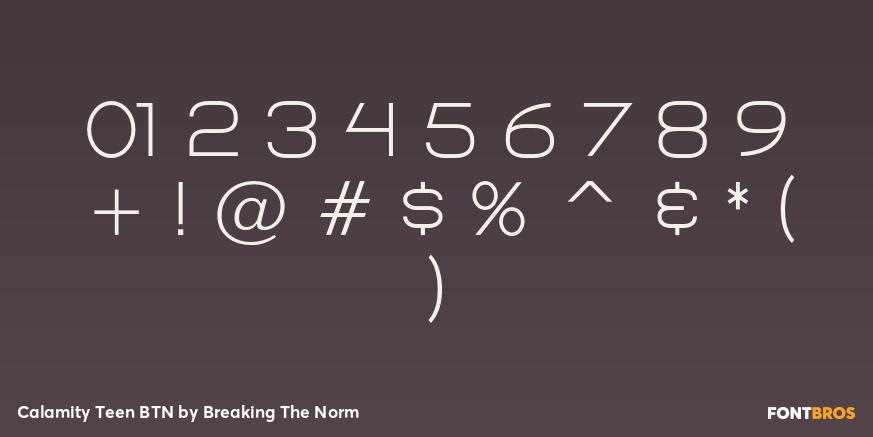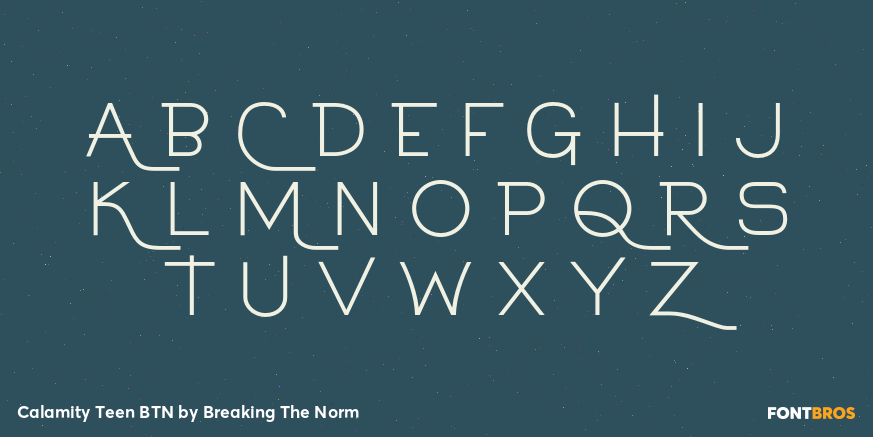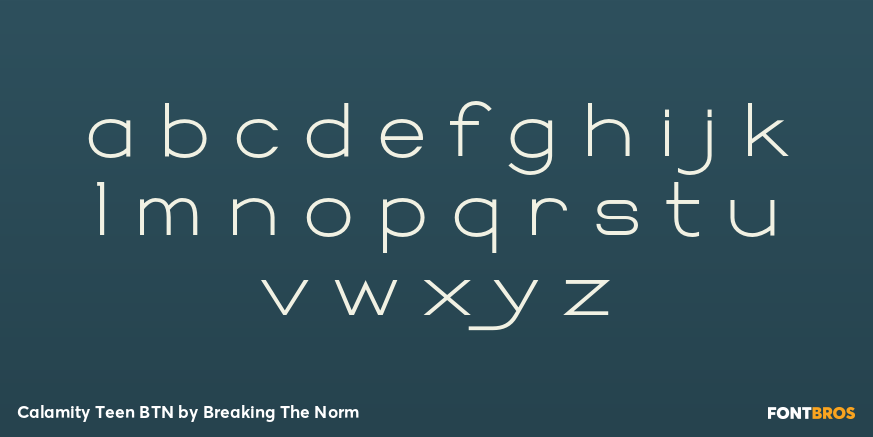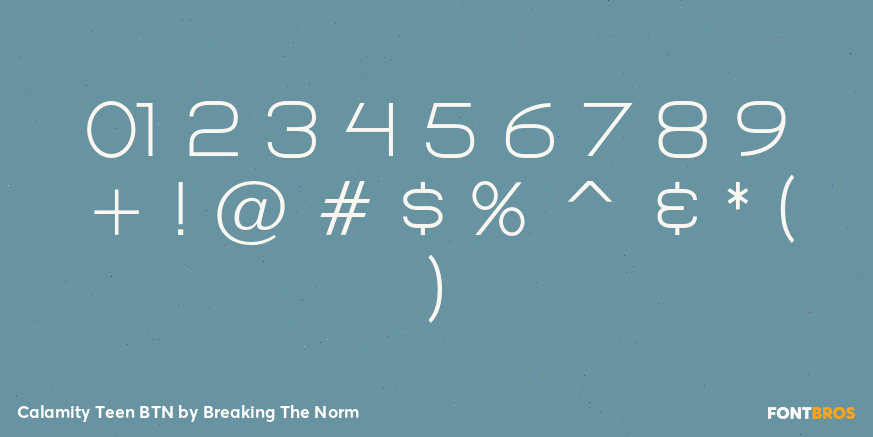
Calamity Teen BTN
Font Family by Breaking The Norm
Calamity Teen BTN is an offbeat retro type family with a playful personality and an unusual visual twist. Its lowercase keeps a relatively simple, readable structure, while the capitals introduce flowing descenders that give the design a distinctive vintage flavor. That contrast helps the family feel both quirky and functional, making it useful for projects that want character without losing clarity. Calamity Teen BTN works well for posters, packaging, editorial design, branding, album art, book covers, and playful display settings, while its readable construction also allows it to step into short text uses when a more whimsical tone is wanted.